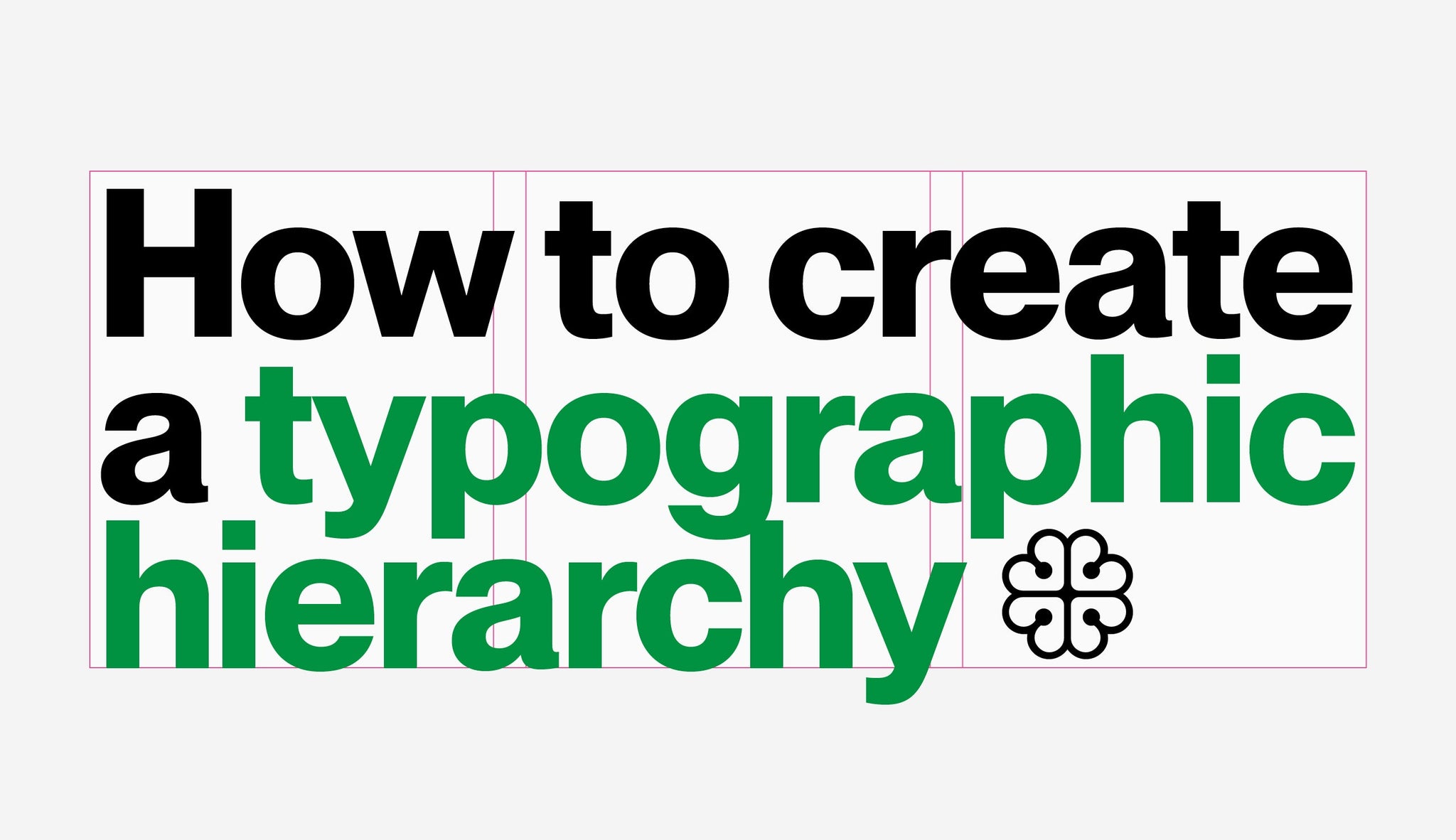
No matter what you’re designing for – maybe it’s a website? A brand? A magazine, perhaps? – typographic hierarchy is your foundation, your building blocks.
It’s what guides your reader through your website, brand or book. It tells them what to look at first, what to skim, and what to remember. Done right, it’s seamless. Done wrong, it can be extremely confusing.
In short, hierarchy is how you visually structure information. Here’s how to do it well.
Start with the text
Before choosing fonts or sizes, understand what you’re trying to say. Read the content. Figure out which parts are headlines, subheadings, body copy, pull quotes, calls to action, footnotes, etc. Then rank them by importance. This will become your hierarchy. Ask yourself, “if the reader only looks at one thing, what should it be?” Take this as your starting point.
Use size intentionally
Size is the most obvious way to show importance. Your biggest text should signal the most important element (usually the headline), followed by subheads, and so on.
For example:
(Web)
Headline: 40–60px
Subhead: 24–36px
Body: 16–20px
Caption/Footnote: 12–14px
(Print)
Headline: 38–60pt
Subhead: 20–36pt
Body: 10–14pt
Caption/Footnote: 6–8pt
For nice, clean, super straightforward type hierarchy, don’t go overboard. The key is consistency – more so than drama. Set your body text first, then scale the rest accordingly. If you want to know how to perfectly set justified text, we have another hand article for you…
Contrast weights and styles
Pair different font weights (light, regular, bold) to create emphasis. Bold text can draw attention to key ideas, while lighter text can signal secondary information. Italics are also great for differentiation, but use them sparingly for emphasis, quotes, or asides – not everything needs a tilt.
Make sure to use fonts with enough weight variety (like PP Neue Montreal , PP Nikkei or PP Right Grotesk ) to build complex hierarchies without needing multiple typefaces.
Play with spacing
Leading (line spacing) helps make large bodies of text more readable. For body copy, aim for 120–140% of your font size. For example,12pt text = ~12–14pt leading). Tracking and letterspacing can also help.
Tight tracking can make headlines feel compact and punchy; wider spacing can give text a sense of air and formality. For some tips on kerning, check out our Kerning Basics guide!
Use colour, but don’t rely on it
Colour is a great way to distinguish elements, especially for UI or branding. But make sure your hierarchy works in black and white first. Then, add colour to reinforce structure or to highlight interactive or important elements. Colour-coded hierarchies can fall apart with poor contrast or accessibility issues.
Limit your font choices (but choose well and wisely)
You don’t need five fonts to build a good hierarchy.
In most cases, one family with multiple styles is more than enough. If you do want to mix, try pairing a serif and a sans (which we have another handy article to help you out with). For example, try PP Editorial New for headlines + PP Neue Montreal for body, or PP Monument + PP Right Gothic.
Repeat, repeat
Once you’ve chosen your headline size, subhead spacing, and body text rules, stick to them. Repeating styles creates rhythm and makes your design feel intentional and cohesive, creating visual and conceptual pace across whatever you’re designing. Create text styles in your software and apply them consistently. No one wants nine subtly different heading sizes.
Test your system
Zoom out. Squint. Scroll. Can you tell what matters most? Can someone new glance at your design and know where to start? Hierarchy should be visible without effort – the eye should naturally follow the structure you’ve built. If it doesn’t, go back and tweak size, weight, spacing, or alignment until it clicks.